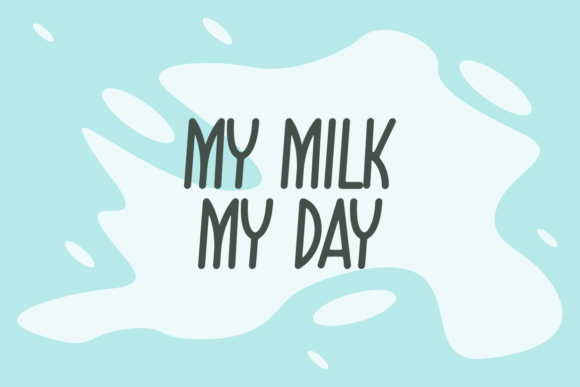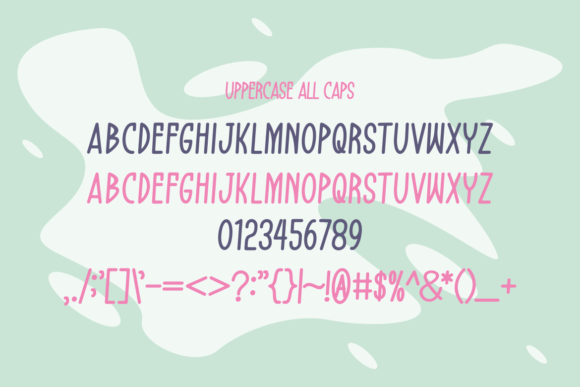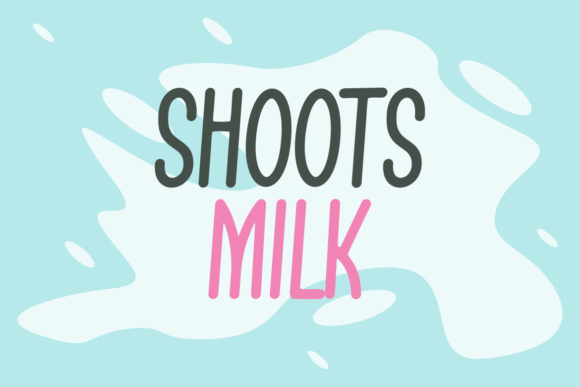
Introduction to Shoots Milk Font
Remember that moment when you’re working on a creative project, and you’re trying to convey a sense of warmth and approachability? You’re searching for the perfect font to add that personal touch, but nothing seems quite right. That’s where the Shoots Milk Font comes in – a friendly handwritten font that’s designed to make your designs feel more natural and inviting.
As a valuable design resource, Shoots Milk Font is perfect for anyone looking to add a high-quality, handwritten touch to their projects. With its smooth, flowing lines and transparent background, it’s easy to see why this font is a popular choice among designers. And the best part? It’s available for free download, making it an accessible addition to any creative project.
Key Features of Shoots Milk Font
- High-quality design resource ideal for creative projects, including graphic design, digital art, and web development.
- Features a transparent background, allowing for seamless integration with any design or background.
- Shoots Milk Font offers a unique and creative font style, perfect for adding a touch of personality to any design project.
Honest Review: Shoots Milk Font
I recently stumbled upon the Shoots Milk Font, a design resource that has caught my attention. As a designer, I’m always on the lookout for unique and high-quality fonts to elevate my creative projects.
One of the things that stands out about the Shoots Milk Font is its modern and playful vibe. It’s perfect for projects that need a bit of whimsy and fun. The font is available for free download, which is a huge plus in my book.
- ✨ Unique and modern design aesthetic
- ⚠️ May not be suitable for serious or formal projects due to its playful nature
Overall, I’m impressed with the Shoots Milk Font. It’s a great addition to any designer’s toolkit, especially for creative projects that need a bit of flair. While it may have some limitations, I believe it’s a great resource for designers who want to add some personality to their designs.
For optimal results, use the Shoots Milk Font on a transparent background to achieve a clean and minimalist design. Experiment with different font sizes and styles to find the perfect combination for your creative project.